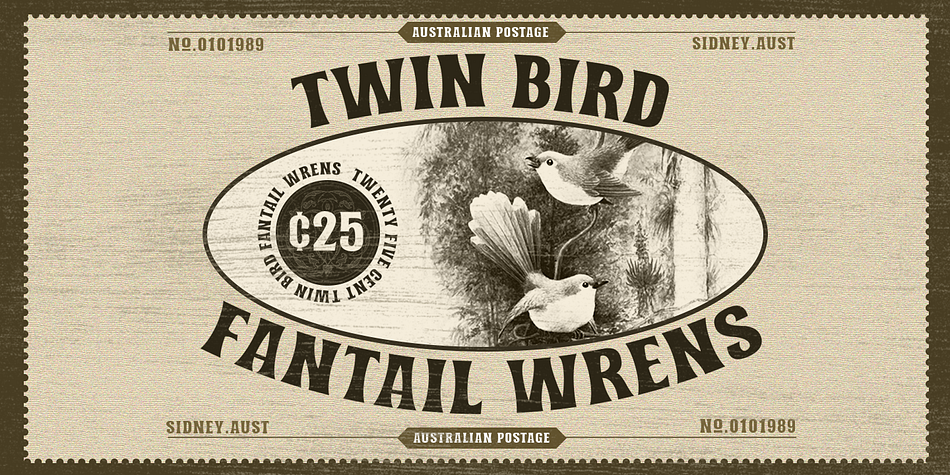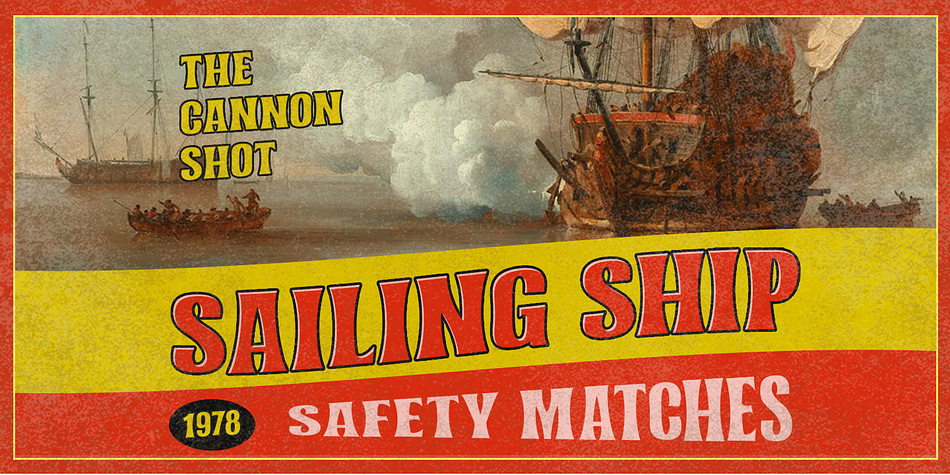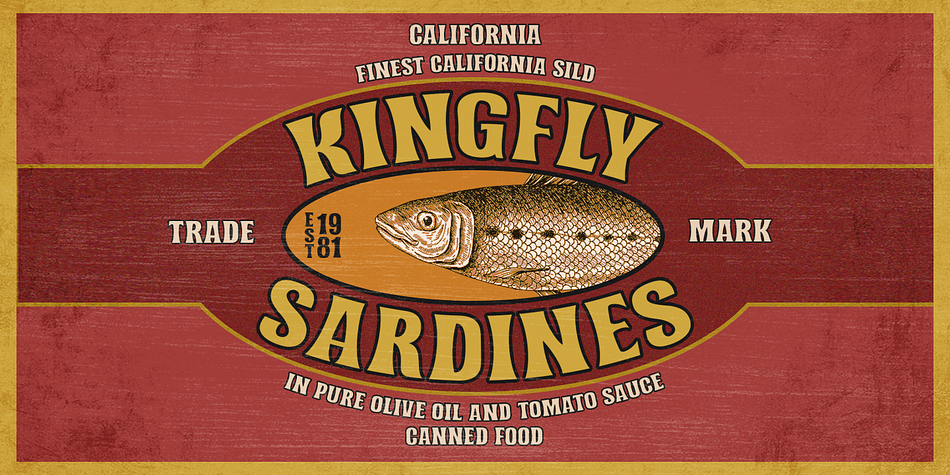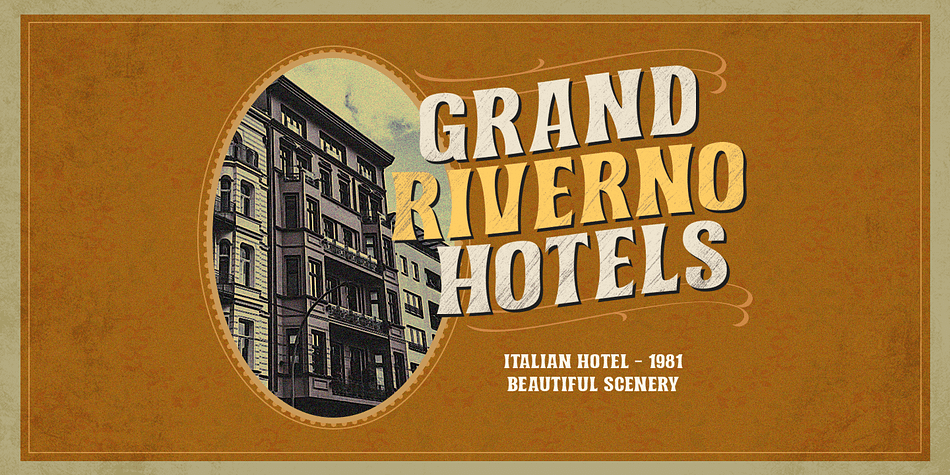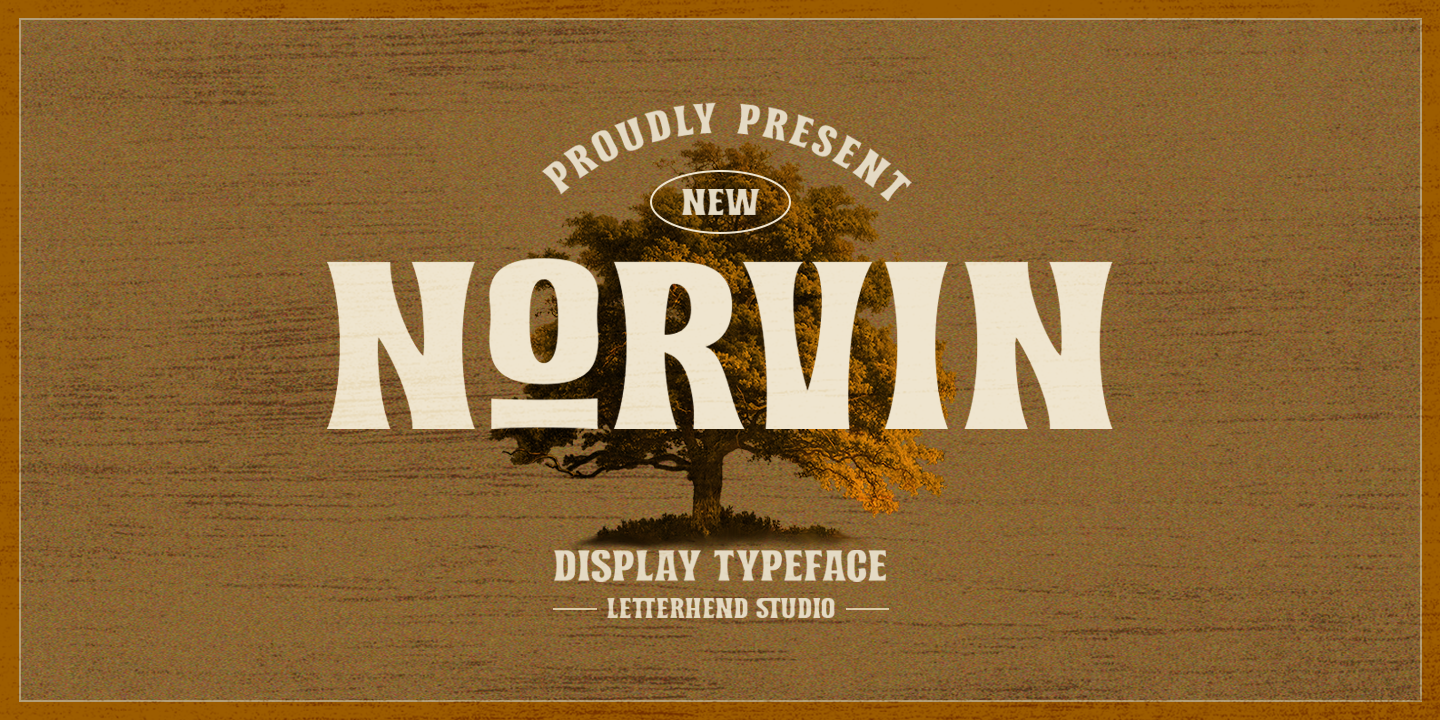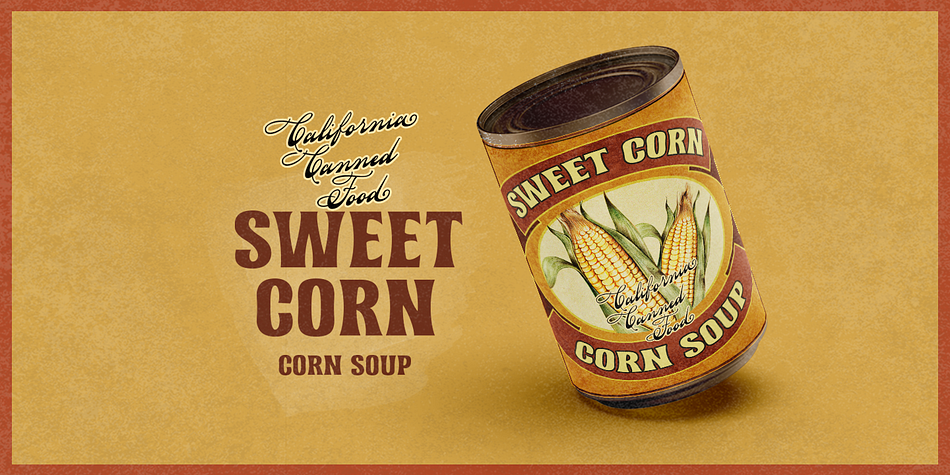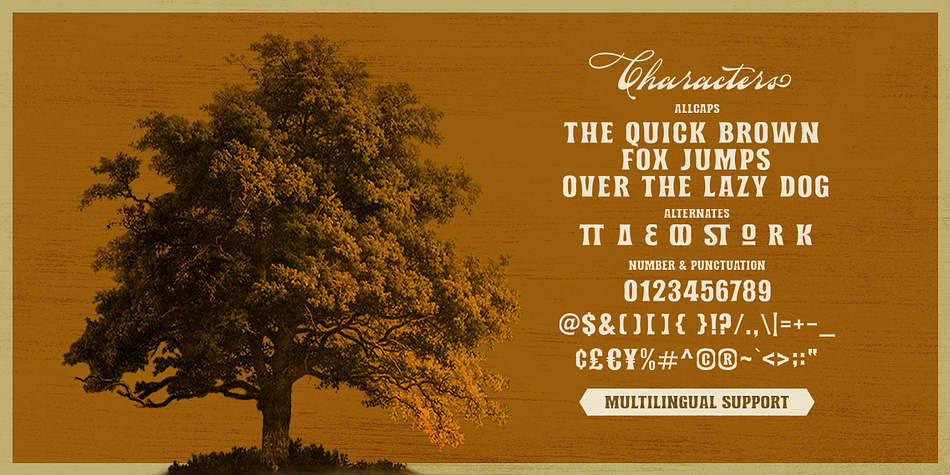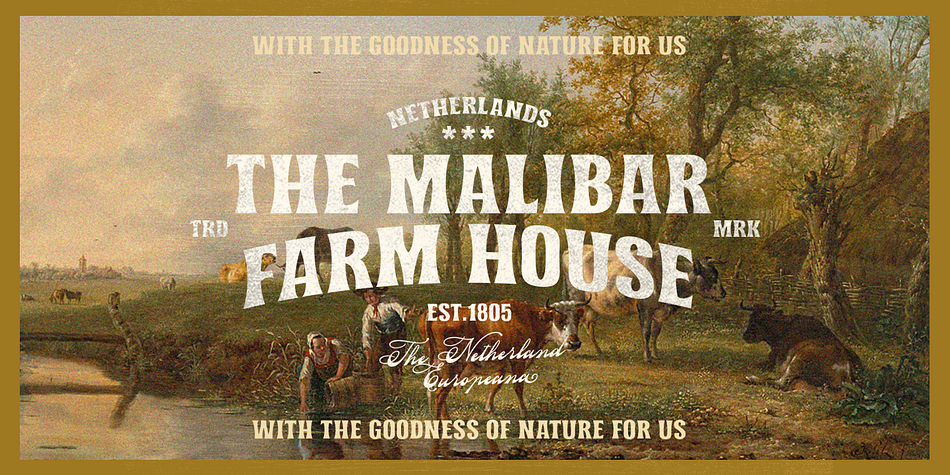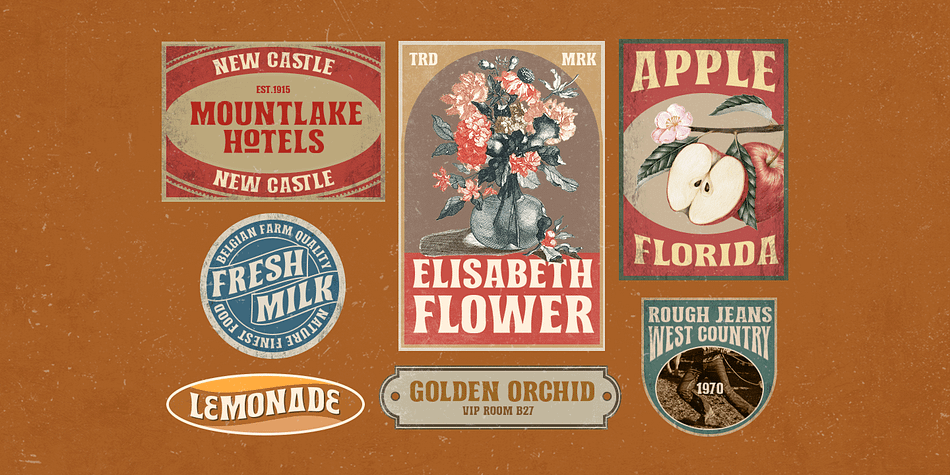
NORVIN
Designed by Hendry Juanda, Norvin is a display font published by Letterhend Studio.
Norvin is a strong and bold sans serif with a touch of vintage look and feel. Comes with 38 bonus hand drawn illustration in vector and free 12 premade logo. This type of font perfectly made to be applied especially in logo, headline, signage and the other various formal forms such as invitations, labels, logos, magazines, books, greeting / wedding cards, packaging, fashion, make up, stationery, novels, labels or any type of advertising purpose.
- Regular & Stamp version
- uppercase only
- alternates / swashes and ligatures